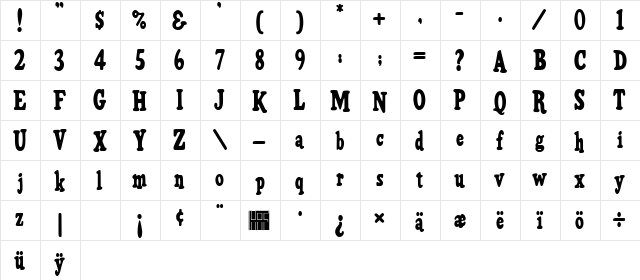
HFF Pure Vain Regular
| Foundry | Have Fun with Fonts |
| Designer | Have Fun with Fonts |
| Year | 2010 |
Design Context for HFF Pure Vain Typeface
HFF Pure Vain offers clean, dependable letterforms without strong stylistic allegiance, making it a practical choice for designers who need flexibility.